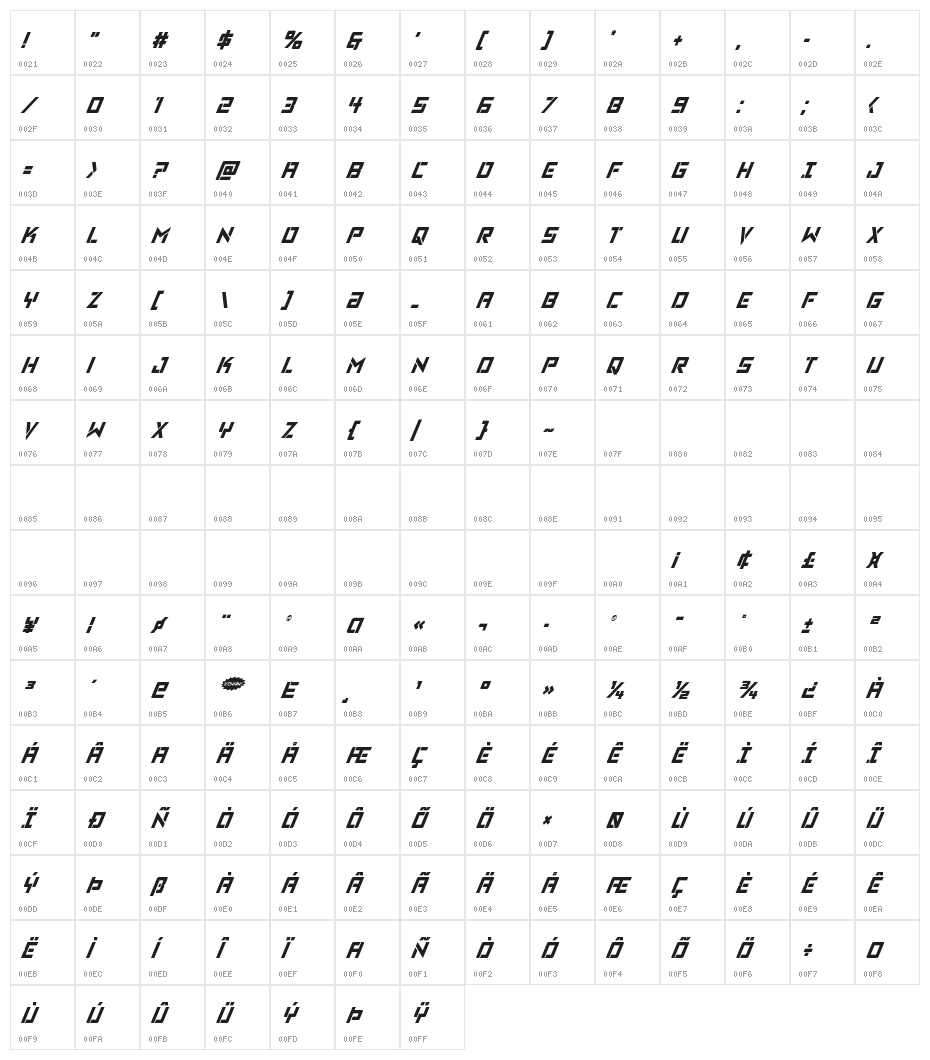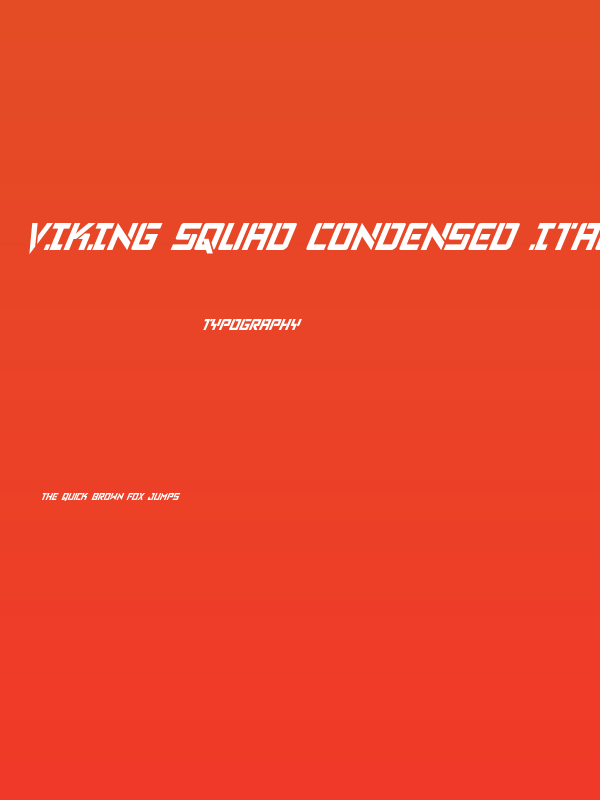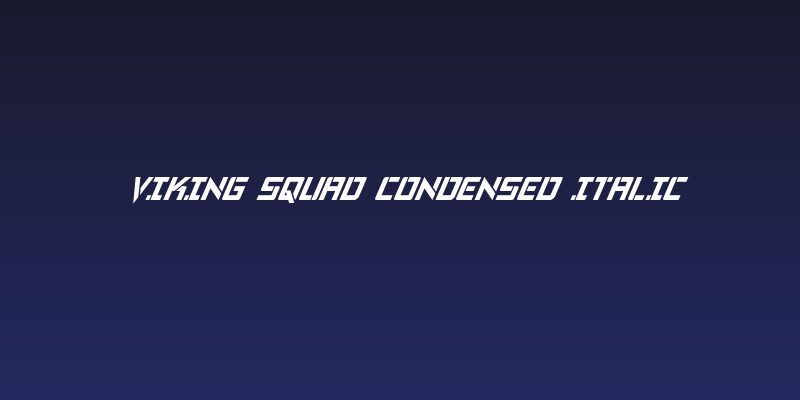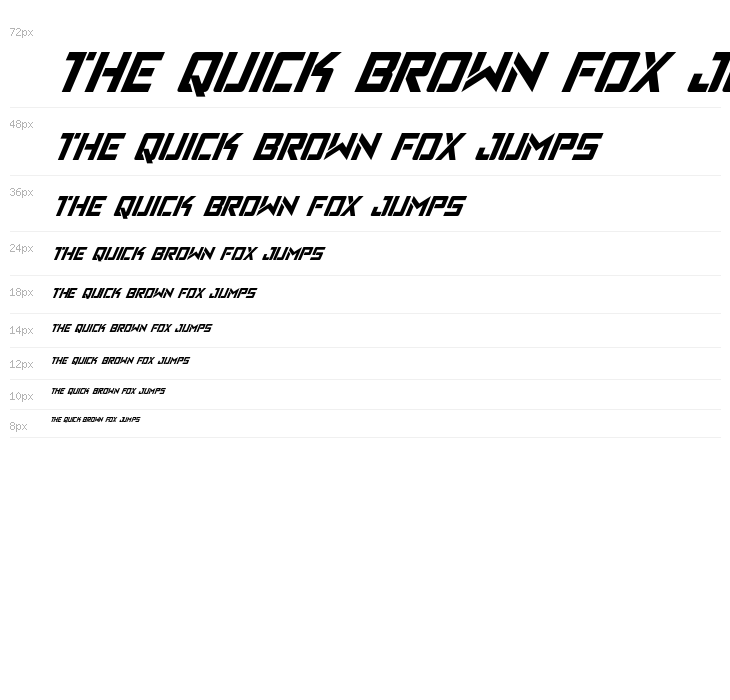
Viking Squad Condensed Italic Font
Viking Squad Condensed Italic Description
This font features a bold, angular design with a futuristic and aggressive aesthetic. The characters are sharply cut with distinct edges, giving them a dynamic and energetic feel. The italicized slant adds a sense of motion and speed, making it ideal for projects that require a modern and edgy look. The condensed width allows for efficient use of space, making it suitable for headlines and impactful text. The high contrast between thick and thin strokes enhances its bold appearance, ensuring that it stands out in any design.
| Proposed Projects | Ideal for sports branding, video game titles, tech-related designs, and dynamic posters. |